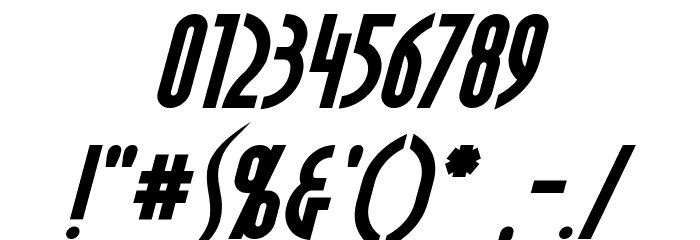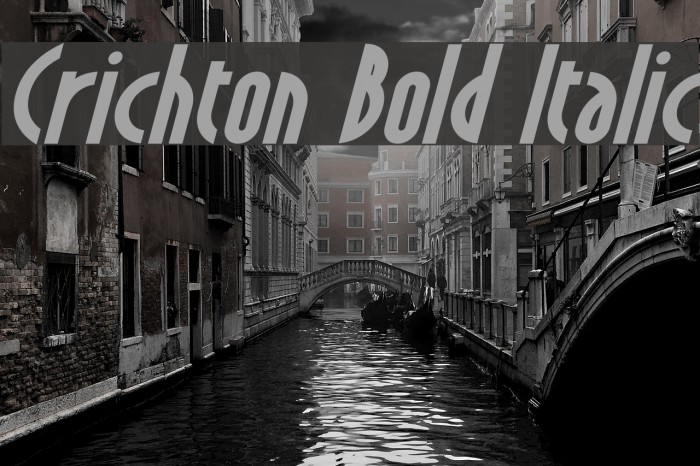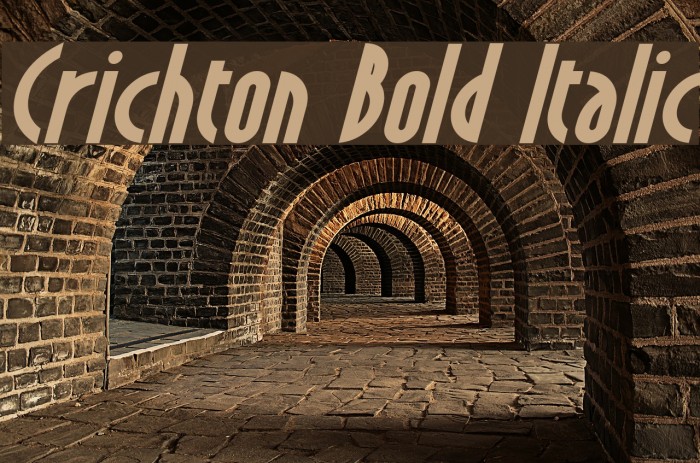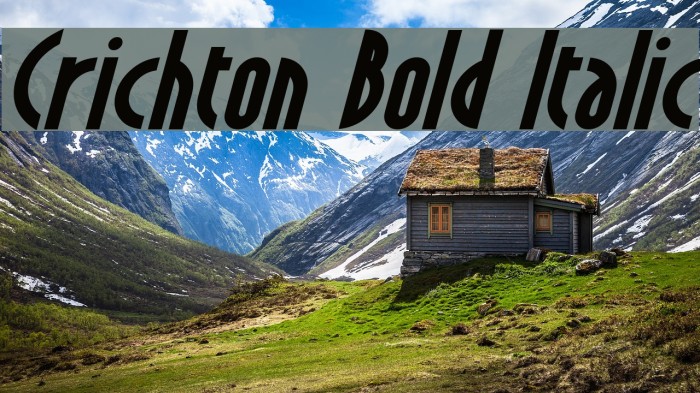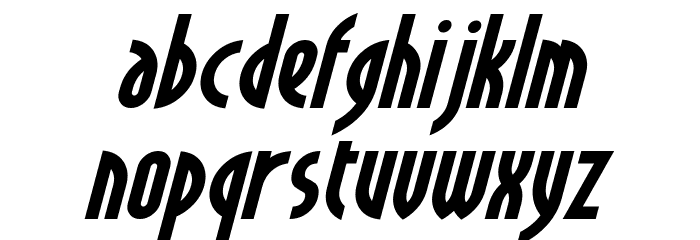
Crichton Bold Italic Font
Crichton Bold Italic Description
This font features a bold and italicized style with a dynamic and forward-leaning appearance. The characters are sharply angled, giving a sense of motion and energy. The uppercase letters are particularly striking, with a strong presence that commands attention. The lowercase letters maintain the same boldness, ensuring consistency throughout the text. Numbers and special characters are designed to match the overall aesthetic, making the font versatile for various uses. The strokes are thick and consistent, contributing to its bold appearance, while the italic slant adds a touch of elegance and sophistication.
A bold, italicized font with dynamic, forward-leaning characters from Uncategorized fonts.
- Proposed Projects: Ideal for branding, advertising, posters, and headlines where a strong, energetic impact is desired.
- Character Spacing: Tight